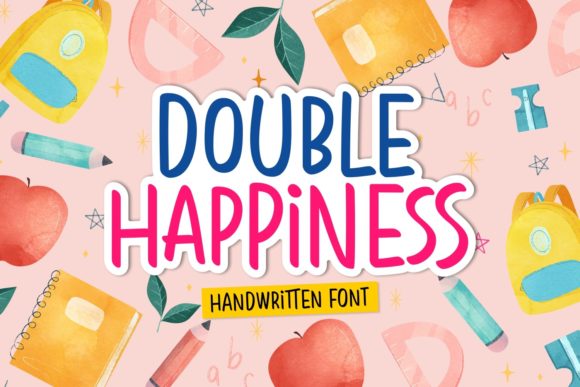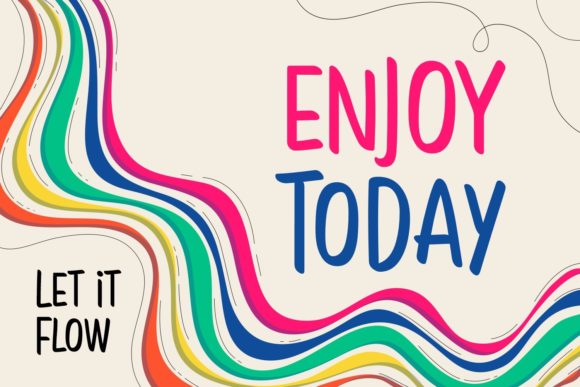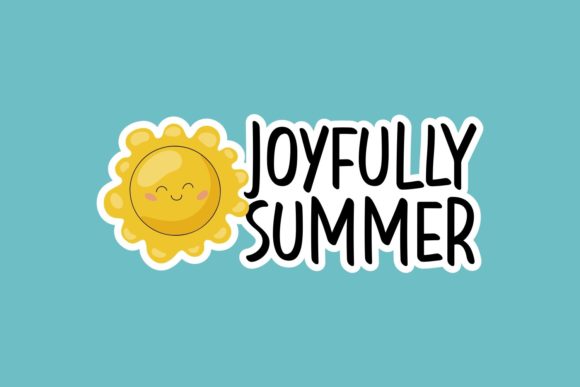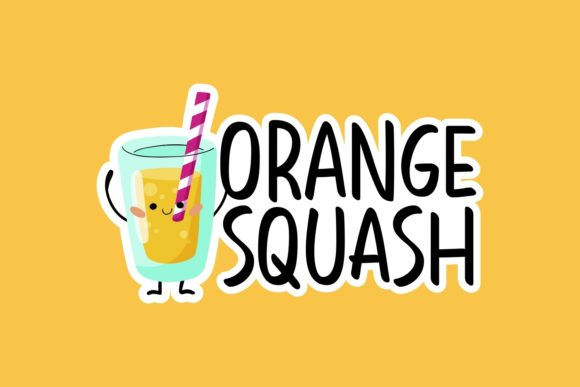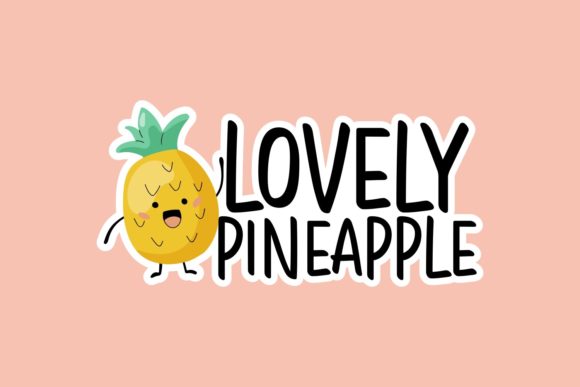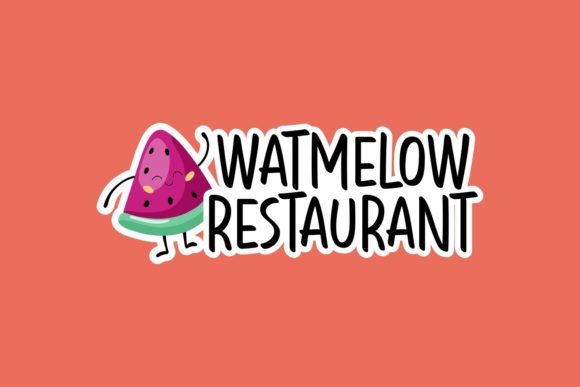
Double Happiness Font
About Double Happiness Font
Double Happiness is a sweet, adaptable and friendly handwritten font. This font was particularly crafted for those who need a beautiful and refreshing look to their designs.